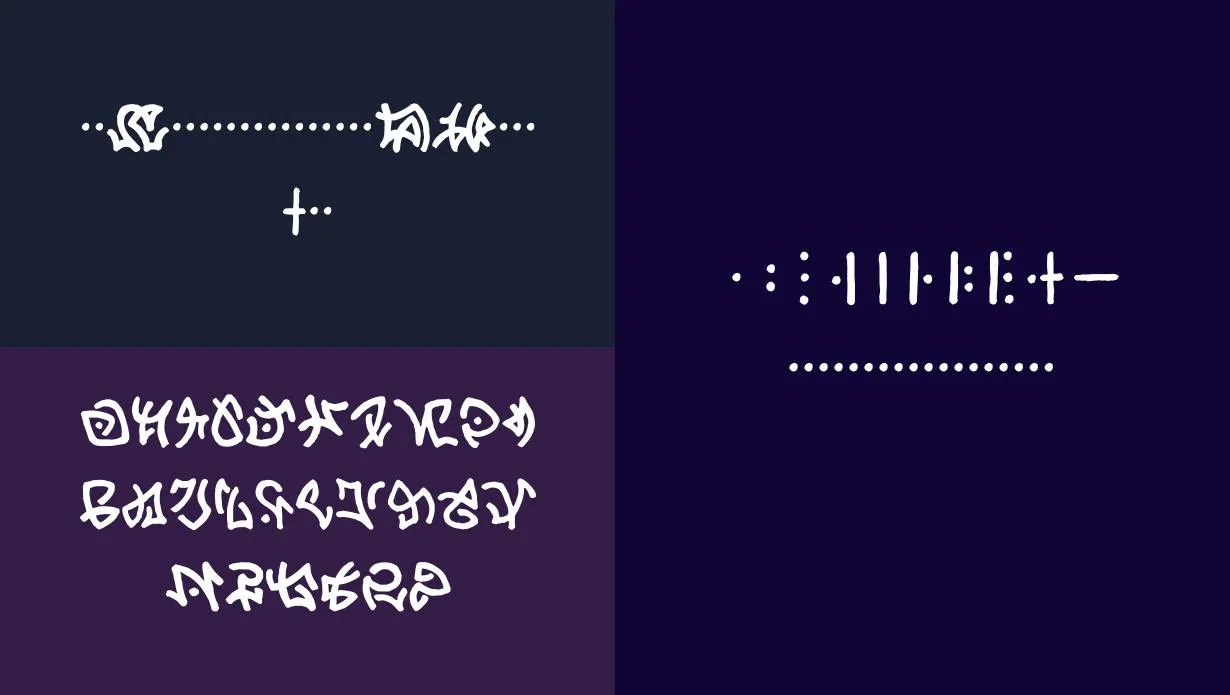
Atlantean Font is a typeface inspired by the mythical and ancient civilization of Atlantis. It’s often used in fantasy-themed designs, role-playing games, and creative projects that aim to capture a sense of mystery and wonder.
This font adds an element of enchantment and mythology to your design work.